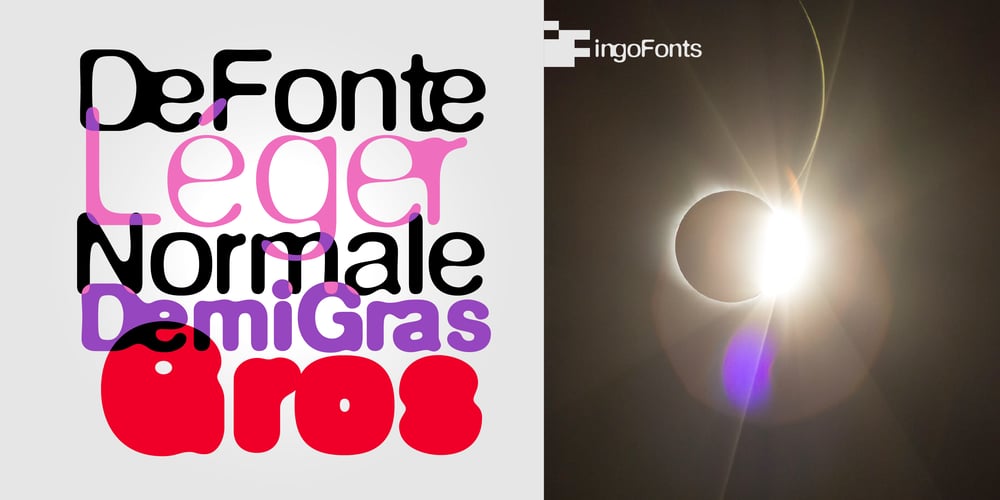
De Fonte Plus
De Fonte Plus font
De Fonte Plus Font Family was designed by Ingo Zimmermann and published by Ingo. De Fonte Plus contains 4 styles and family package options. A variation of ”Helvetica according to the blur principle.“The underlying typeface is ”Helvetica“, the only true ”run-of-the-mill“ typeface of the twentieth century. The distortion principle used simulates the photographic effect of halation and/or overexposure.The light weight, »DeFonte Léger«, nearly breaks on the thin points, whereas on those points where the lines meet or cross, dark spots remain. The characters are ”nibbled at“ from the inner and outer brightness.On the normal and semibold typestyles, »DeFonte Normale« and »DeFonte Demi Gras«, the effect is limited almost exclusively to the end strokes and corners, which appears to be strongly rounded off. The bold version »DeFonte Gros« is especially attractive. As a result of ”overexposure“, counters (internal spaces) are closed in, while characters become blurred and turn into spots; new characteristic forms are created which are astoundingly legible.The fat version »DeFonte Gros« is particularly appealing. “Overexposure” leads to drifted counters, letters blur into spots; new characteristic forms emerge, which are surprisingly easy to read.